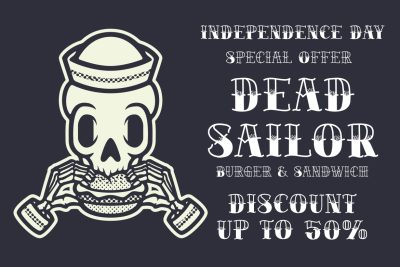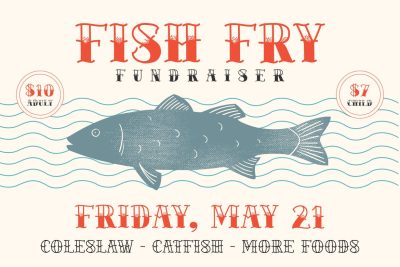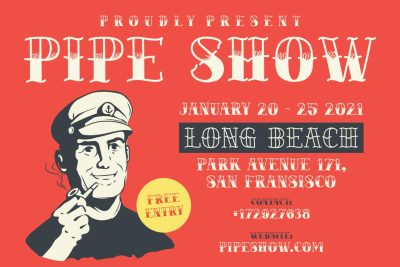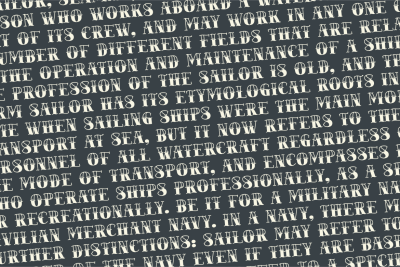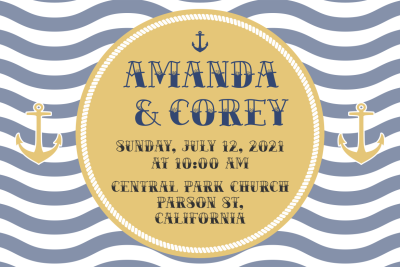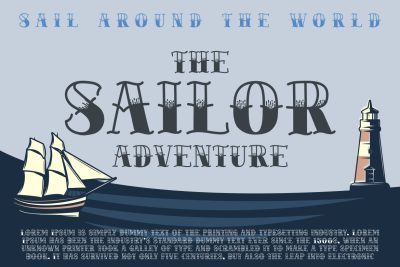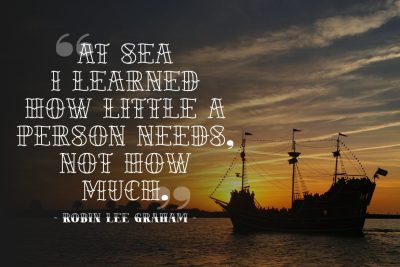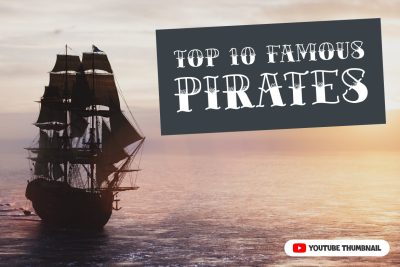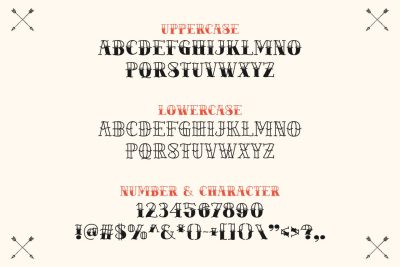
Tattoo font Bradwick is a vintage sailor-inspired typeface that captures the adventurous spirit of the sea. It evokes the nostalgia of traditional sailor tattoos with its rough edges and weathered look. Additionally, this font brings the charm of old maritime aesthetics. The bold serifs and distressed elements give it a rugged yet classic appeal. Therefore, itโs perfect for projects that need a retro or nautical touch. Whether youโre designing posters, apparel, or branding, Bradwickโs distinct character ensures your message stands out with ease.
Furthermore, the Bradwick font draws inspiration from vintage tattoo art and old maritime signage. Its handcrafted feel, along with intricate details, makes it perfect for creative projects with a raw, stylish look. Moreover, the slight imperfections and worn-out texture add authenticity to your designs. Bradwick thrives in both digital and print media, offering excellent versatility. Whether for logos, event posters, or tattoo art, this font provides a unique aesthetic with a strong visual impact.
Tattoo Font Bradwick Perfect For
Tattoo font Bradwick is ideal for graphic designers, tattoo artists, and creatives. In particular, itโs great for projects that need a bold, nautical theme. The rough, weathered look works well for tattoo designs, vintage projects, and anything related to maritime culture. Additionally, Bradwick adds adventure, history, and rugged charm to any design.
Itโs also perfect for apparel branding, especially for surf or sailor-inspired clothing lines. The boldness of this font gives it a strong presence in logos, merchandise, and labels. Furthermore, businesses related to coastal or nautical activities, like boat tours or seafood restaurants, can use Bradwick to create striking brand identities.
Tattoo artists can use Bradwick for custom lettering tattoos with a vintage sailor style. Its bold, traditional elements make for creative designs that stand out. Additionally, event planners can also use it for pirate or sailor-themed events, enhancing invitations, banners, and promotional materials.
In conclusion, Tattoo font Bradwick brings nostalgia, adventure, and maritime culture together. Its bold and distinctive style is ideal for projects that need a rugged, vintage flair with a timeless sailor-inspired look.